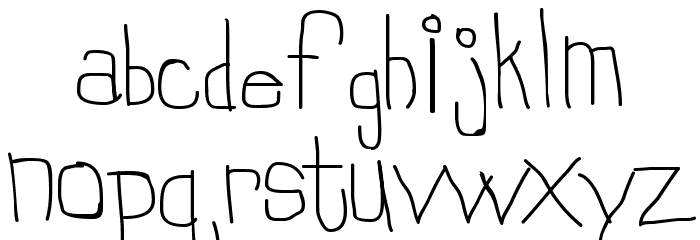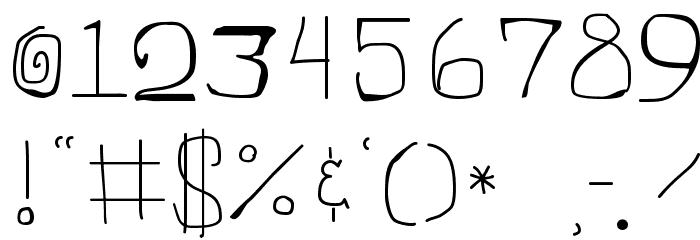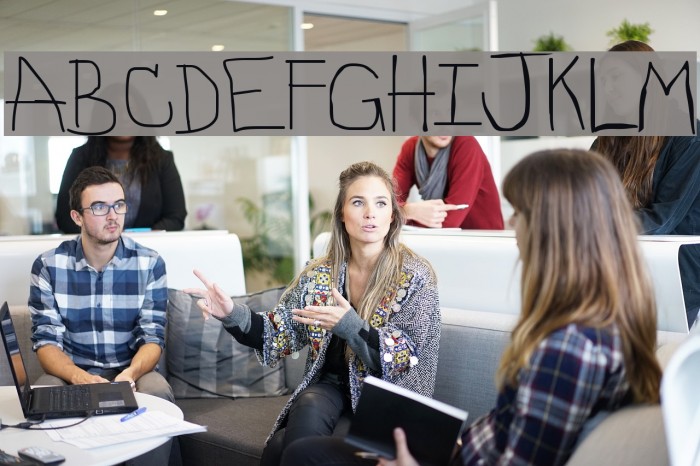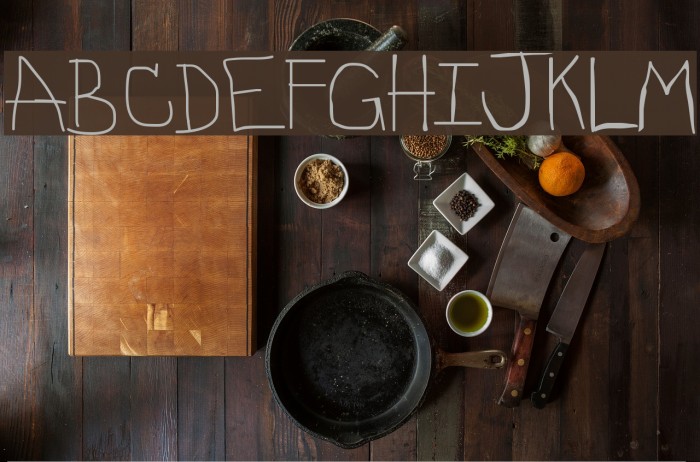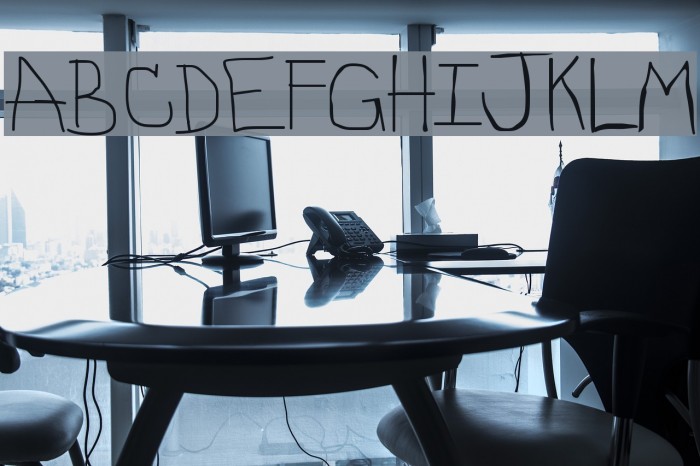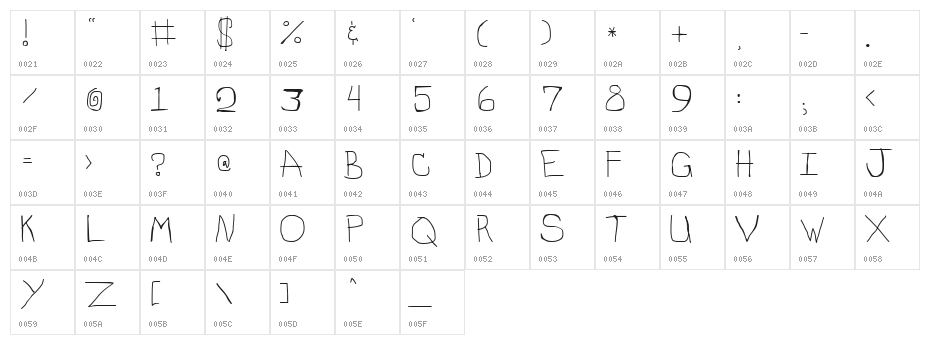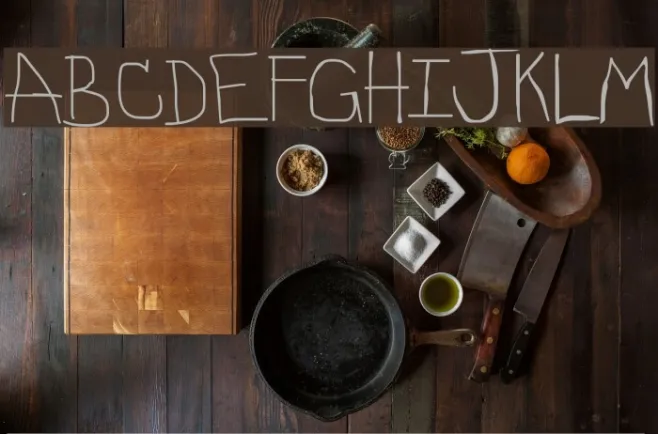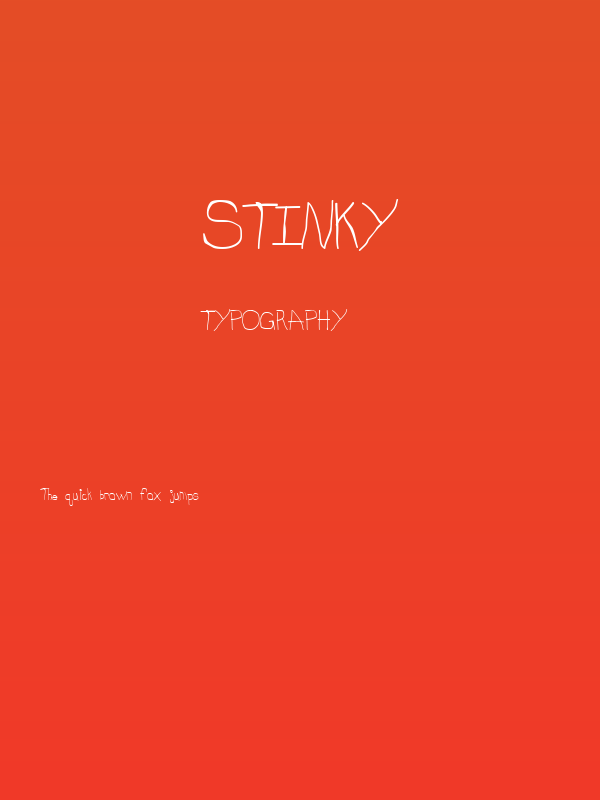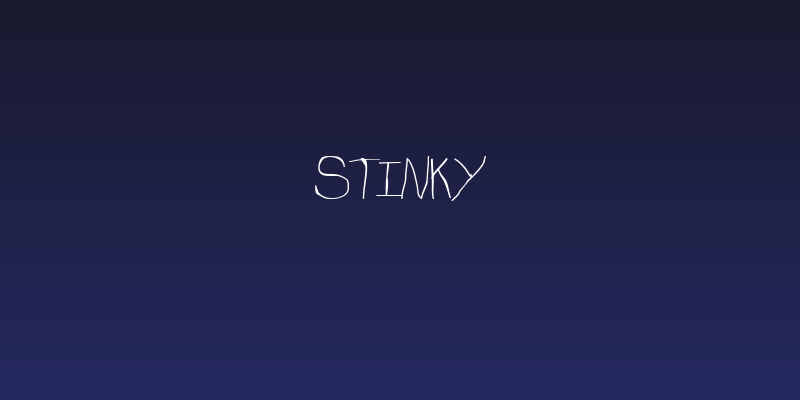
Stinky Font
This font features a playful and quirky handwritten style, characterized by its irregular and uneven strokes. The letters have a whimsical appearance, with varying heights and widths that give it a casual and informal feel. The uppercase letters are tall and narrow, while the lowercase letters maintain a consistent flow with occasional loops and curls. The numbers and special characters follow the same playful design, adding to the font's overall charm. This font is perfect for projects that require a fun and lighthearted touch.
A playful, quirky handwritten font with irregular strokes and whimsical characters.
- Proposed Projects: Ideal for children's books, greeting cards, playful branding, and casual invitations.
- Use Case: Headlines, Logos, Informal Text